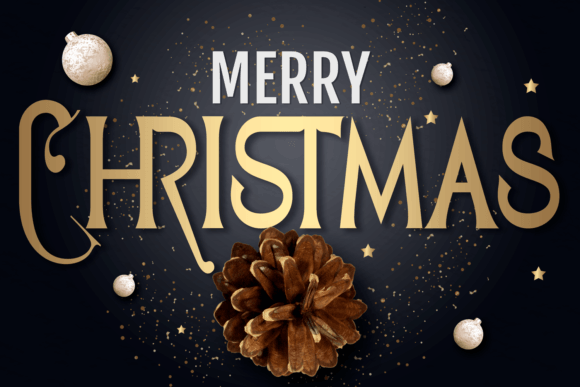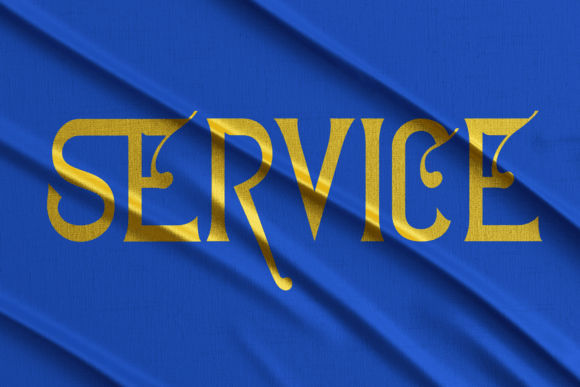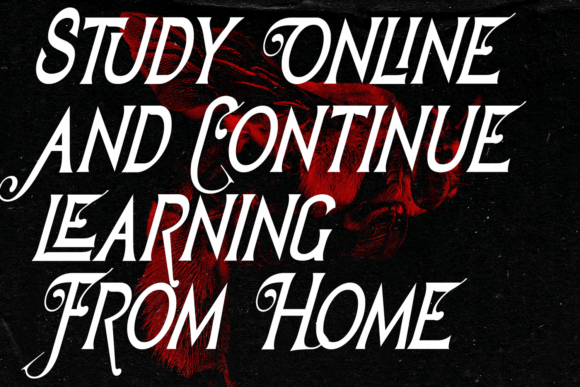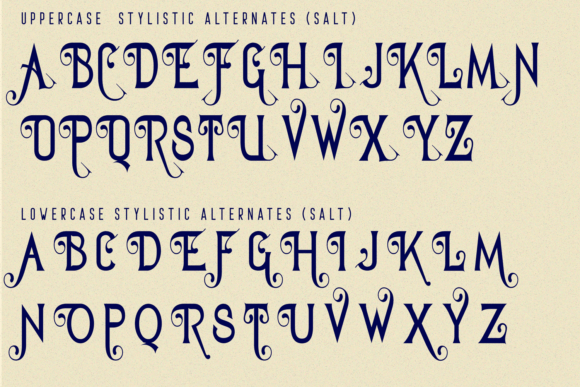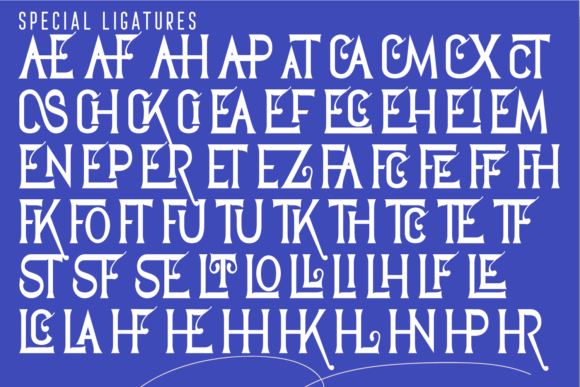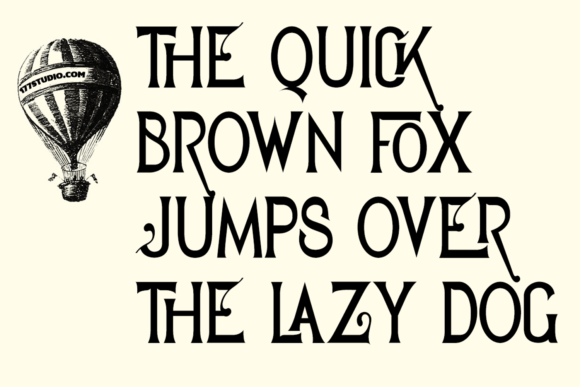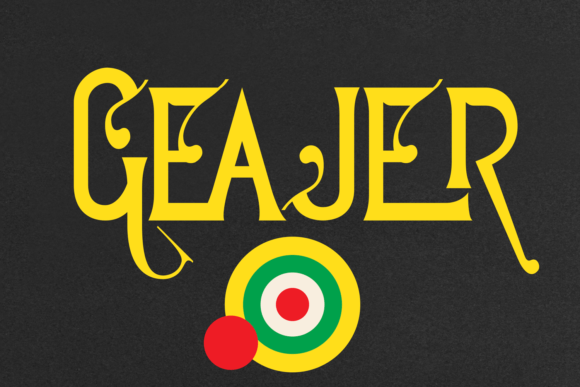
Introducing Geajer Font: The Perfect Blend of Modernity and Classic Elegance
In the world of typography, fonts play a crucial role in conveying the tone and personality of a brand, product, or project. With the vast array of typefaces available, finding the perfect one that embodies both modernity and classic elegance can be a daunting task. However, if you’re looking for a font that seamlessly blends the two, look no further than Geajer Font. This stunning serif typeface is designed to leave a lasting impression, making it an ideal choice for designers, crafters, and businesses seeking to elevate their visual identity.
Aesthetic Style and Unique Characteristics
Geajer Font boasts an aesthetic style that is both modern and classic, with a unique twist that sets it apart from other serif typefaces. Its elegant and refined design makes it perfect for projects that require a touch of sophistication and luxury. The font’s serif-type tagline is modern and elegant, adding a professional touch to any design. With its clean lines, precise curves, and balanced proportions, Geajer Font exudes a sense of refinement and poise.
Professional Characteristics
What makes Geajer Font truly stand out is its array of professional characteristics. These include:
- Unique Glyphs: Geajer Font features a range of unique glyphs that add a touch of personality to your designs.
- Multi-Language Support: The font supports multiple languages, making it a versatile choice for global brands and projects.
- Adjustable Ligatures: With adjustable ligatures, you can customize the font to suit your design needs.
- OpenType Features: Geajer Font includes OpenType features that allow for advanced typographic control.
Geajer Font’s versatility makes it suitable for a wide range of applications, including:
- Elegant & Luxury Logos: Create a lasting impression with a sophisticated logo that exudes luxury and refinement.
- Book or Movie Title Design: Add a touch of elegance to your book or movie titles with Geajer Font’s classic serif design.
- Fashion Brands: Elevate your fashion brand with a font that embodies style, sophistication, and luxury.
- Magazines and Editorials: Use Geajer Font to add a touch of elegance to your magazine or editorial designs.
- Clothes and Apparel: Create stunning clothing and apparel designs with Geajer Font’s unique and stylish aesthetic.
- Lettering and Quotes: Add a touch of sophistication to your lettering and quote designs with Geajer Font’s elegant serif style.
Why Choose Geajer Font?
With so many fonts available, why choose Geajer Font? Here are just a few reasons:
- Unique Style: Geajer Font offers a unique style that sets it apart from other serif typefaces.
- Professional Quality: The font is designed with professional quality in mind, making it perfect for high-end projects.
- Elegant and Attractive: Geajer Font is designed to present an elegant and attractive identity for your company or project.
- Versatile: The font is suitable for a wide range of applications, making it a versatile addition to your font library.
In conclusion, Geajer Font is a stunning serif typeface that offers the perfect blend of modernity and classic elegance. With its unique style, professional characteristics, and versatility, it’s an ideal choice for designers, crafters, and businesses seeking to elevate their visual identity. Whether you’re looking to create a luxurious logo, elegant book or movie title design, or sophisticated fashion brand, Geajer Font is the perfect choice. So why wait? Discover the power of Geajer Font and take your designs to the next level.